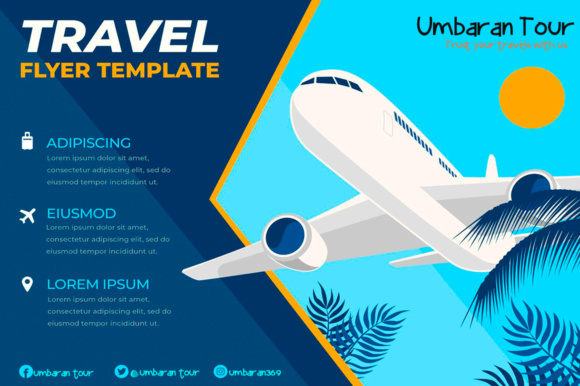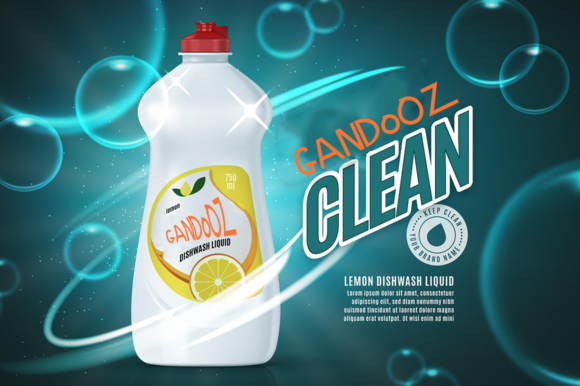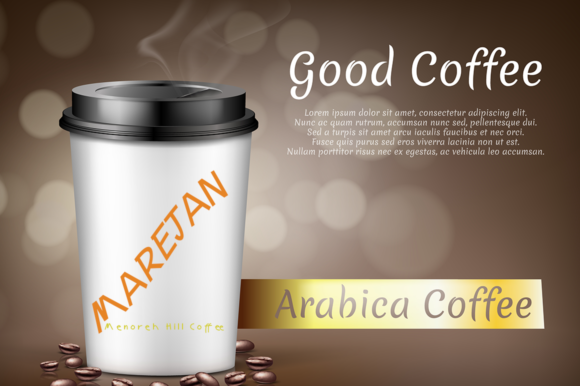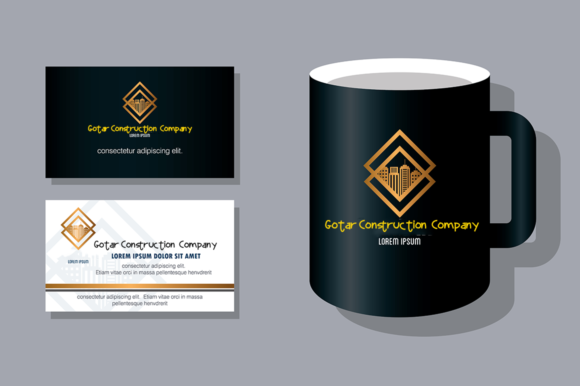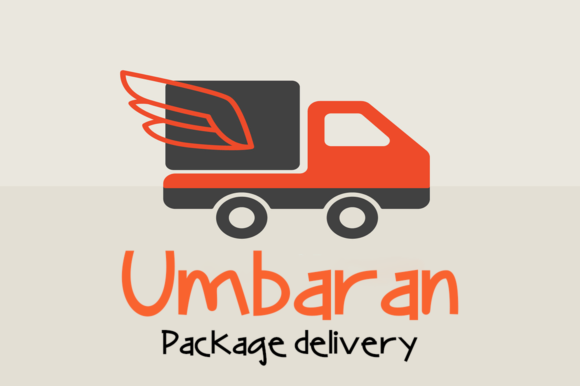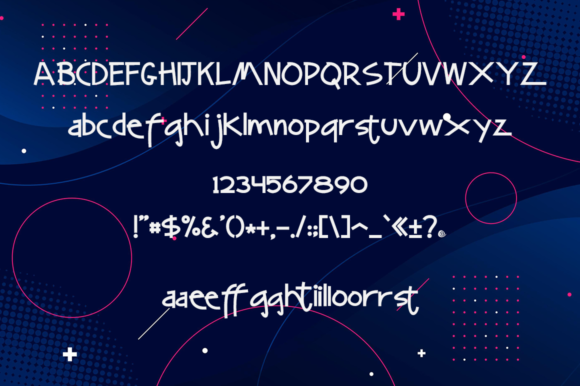
Unleash Your Creativity with Doomberg Font: The Quirky Display Font You Need
Are you tired of using the same old fonts in your designs? Do you want to add a touch of personality and whimsy to your projects? Look no further than the Doomberg Font, a cool, informal, and asymmetrical display font that’s sure to turn heads. With its quirky charm and versatility, Doomberg is the perfect addition to any designer’s toolkit.
What is Doomberg Font?
Doomberg Font is a unique and eye-catching display font that’s designed to add a dash of personality to your designs. Its asymmetrical and informal style gives it a quirky feel that’s perfect for creating bold and attention-grabbing headlines, titles, and captions. Whether you’re working on a logo, branding project, or social media graphic, Doomberg Font is sure to make your design stand out from the crowd.
Key Features of Doomberg Font
- Asymmetrical design: Doomberg Font’s asymmetrical style gives it a dynamic and playful feel that’s perfect for creating visually interesting designs.
- Informal and quirky: This font’s informal and quirky style makes it perfect for adding a touch of personality to your designs.
- Display font: Doomberg Font is designed specifically for display use, making it perfect for headlines, titles, and captions.
- Versatile: Despite its quirky style, Doomberg Font is incredibly versatile and can be used in a wide range of contexts, from logos and branding to social media graphics and more.
Why Use Doomberg Font?
So why should you use Doomberg Font in your designs? Here are just a few reasons:
- Add personality to your designs: With its quirky and informal style, Doomberg Font is the perfect way to add a touch of personality to your designs and make them stand out from the crowd.
- Create bold and attention-grabbing headlines: Doomberg Font’s asymmetrical design and bold style make it perfect for creating headlines and titles that grab attention and draw the eye.
- Perfect for crafters and designers: Whether you’re a professional designer or a crafter, Doomberg Font is a great addition to your toolkit, offering a unique and versatile font that’s perfect for a wide range of projects.
How to Use Doomberg Font
So how can you use Doomberg Font in your designs? Here are a few ideas to get you started:
- Logos and branding: Use Doomberg Font to create bold and eye-catching logos and branding materials that showcase your personality and style.
- Social media graphics: Add a touch of personality to your social media graphics with Doomberg Font, perfect for creating attention-grabbing headlines and captions.
- Posters and flyers: Use Doomberg Font to create bold and eye-catching posters and flyers that grab attention and draw the eye.
- Packaging and labels: Add a touch of whimsy to your packaging and labels with Doomberg Font, perfect for creating unique and eye-catching designs.
Tips and Tricks for Using Doomberg Font
Here are a few tips and tricks for getting the most out of Doomberg Font:
- Experiment with different colors: Doomberg Font looks great in a wide range of colors, so don’t be afraid to experiment and find the perfect hue for your design.
- Play with font sizes: Doomberg Font is designed to be bold and eye-catching, so try playing with different font sizes to create visual interest and hierarchy in your design.
- Combine with other fonts: Doomberg Font pairs well with a wide range of other fonts, so try combining it with other fonts to create a unique and visually interesting design.
In conclusion, Doomberg Font is a cool, informal, and asymmetrical display font that’s perfect for adding a touch of personality and whimsy to your designs. With its quirky charm and versatility, Doomberg Font is a great addition to any designer’s toolkit, offering a unique and eye-catching font that’s perfect for a wide range of projects. So why not give it a try and see how it can elevate your designs?